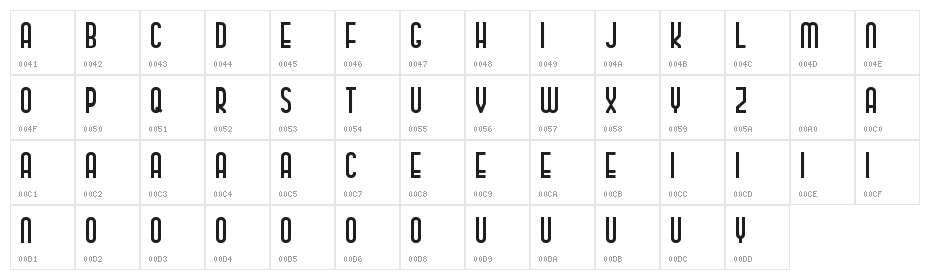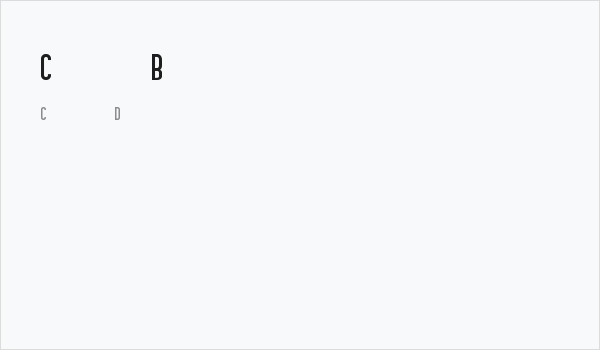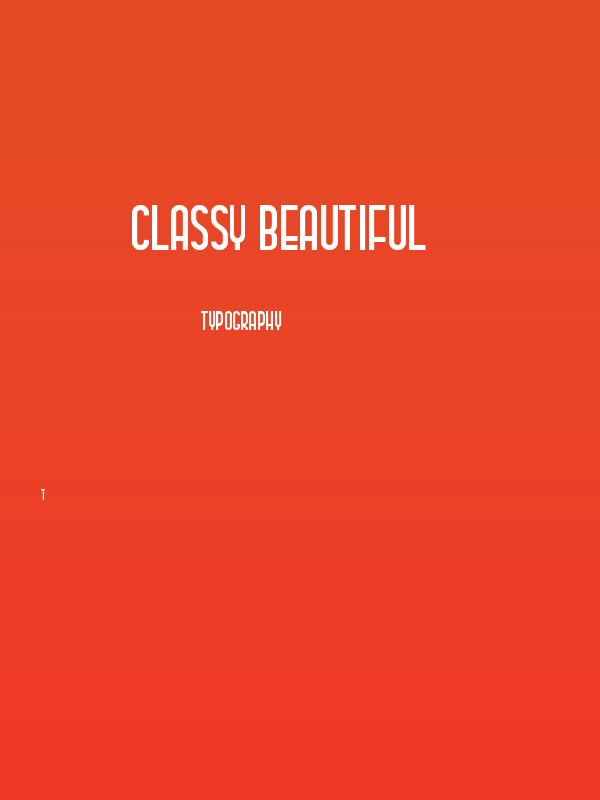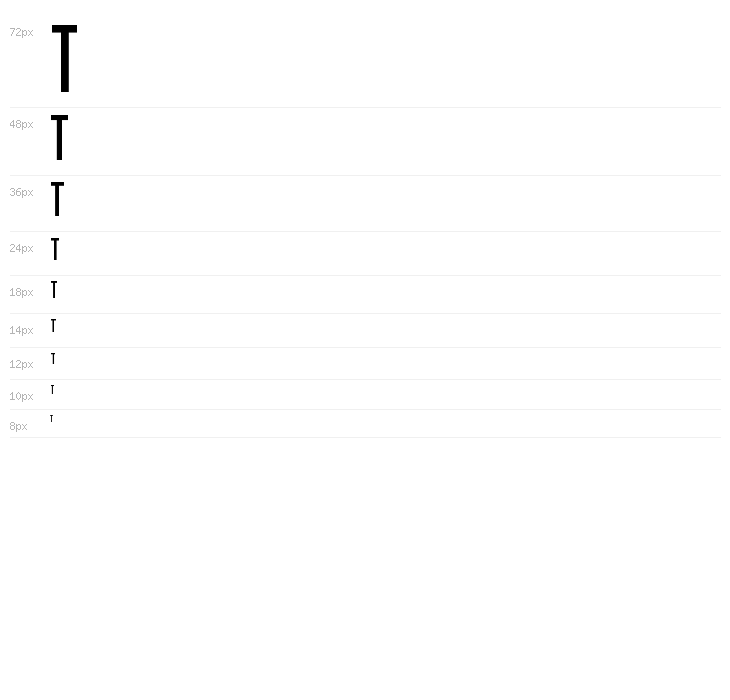
Classy Beautiful 2 Font
Nirmana Visual - Sigit Dwipa - www.instagram.com/nirmanavisual/
| Caso d'uso | Headlines, Logos, Branding |
| Progetti proposti | Ideal for branding, advertising, and editorial design projects where a modern and sophisticated look is desired. |